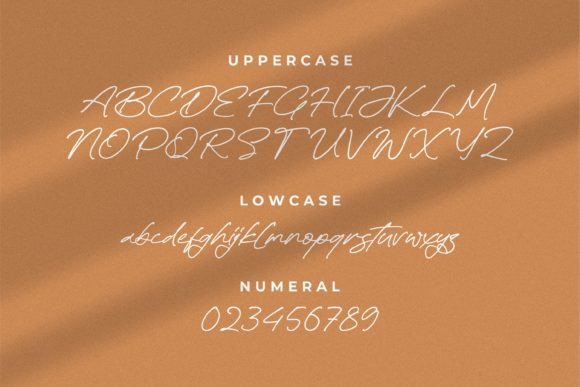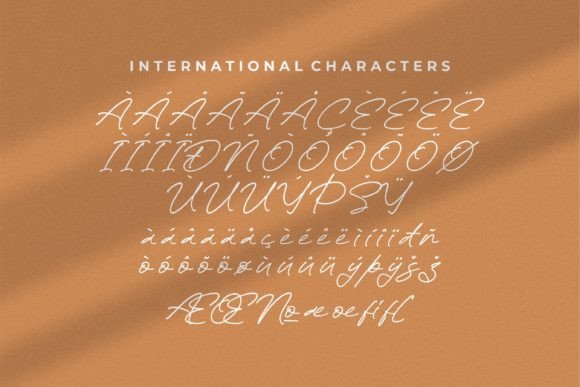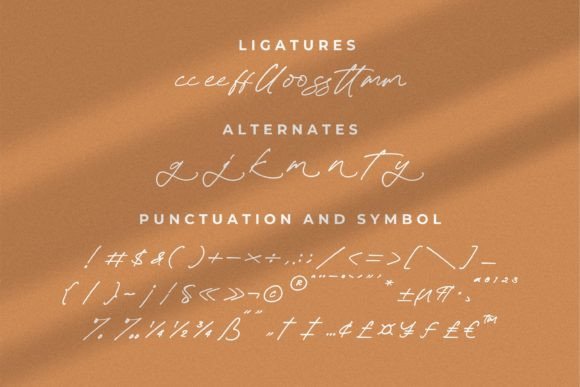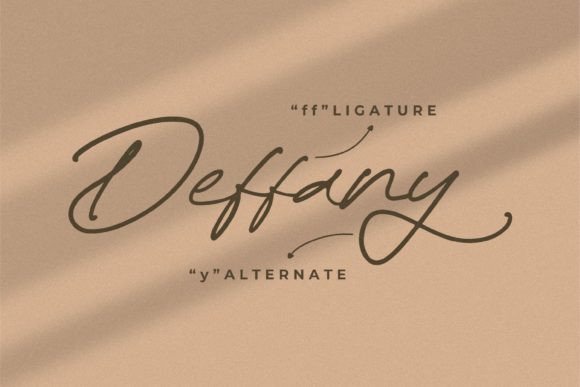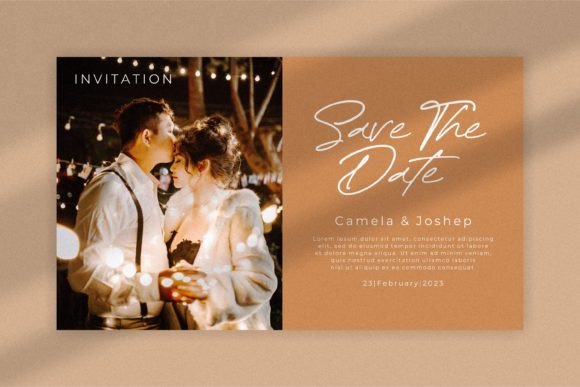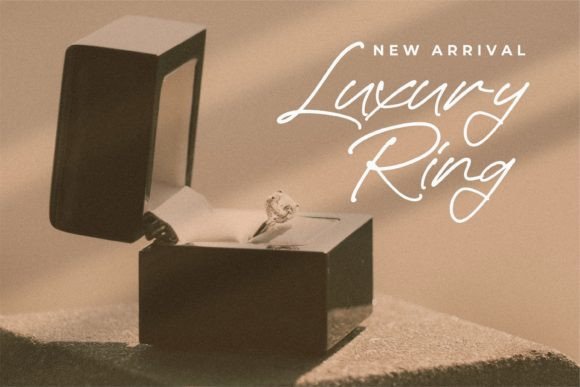
Introduction to Rinatha Font
Have you ever been stuck in front of your computer, staring at a blank canvas, searching for the perfect font to bring your creative project to life? I’m sure we’ve all been there at some point. For designers, finding the right font can be a game-changer. It’s the difference between a mediocre design and a truly stunning one that grabs attention and leaves a lasting impression.
Enter the Rinatha Font, a beautiful and bold handwritten font that’s sure to elevate any project to new heights. With its high-quality design and PUA encoded features, this font is a valuable resource for designers looking to add a touch of luxury to their work. Whether you’re creating logos, branding, or homewares designs, the Rinatha Font is the perfect companion to help you achieve your creative vision.
Key Features of Rinatha Font
- Rinatha Font is a high-quality design resource, perfect for any creative project.
- Unique characteristics include a modern, elegant aesthetic and a wide range of stylistic options.
Honest Review: Rinatha Font
As a designer, I’m always on the lookout for high-quality design resources that can elevate my creative projects. The Rinatha Font has caught my attention, and I’m excited to share my honest review.
Here are some aspects that work well: ✨
- Unique and modern design aesthetic that can add a touch of sophistication to any project
- High-quality font that looks great on various backgrounds, including transparent backgrounds
- Supports a wide range of languages, making it a versatile choice for global projects
However, there are some limitations to consider: ⚠️
- Limited font styles and weights, which may not be suitable for complex design projects
- No extended font family, which can limit customization options
Overall, the Rinatha Font is a solid choice for designers who want a modern and sleek font for their creative projects. While it may have some limitations, its unique design aesthetic and high-quality rendering make it a worthwhile addition to any design resource library.
The Rinatha Font is a high-quality design resource that can elevate any creative project. With its unique style and transparent background, it’s perfect for designers looking for a versatile font.
Tips for Getting the Most Out of Rinatha Font
To get the most out of Rinatha Font, use it in combination with other design elements to create a cohesive look.
Experiment with different font sizes, colors, and styles to achieve the desired effect.
Common Use Cases for Rinatha Font
The Rinatha Font is perfect for:
1. Branding and logos.
2. Social media graphics.
3. Infographics.
4. Brochures and flyers.
Alternatives to Rinatha Font
Montserrat is a modern sans-serif font designed for digital use. It’s perfect for high-quality design projects that require a clean and minimalist aesthetic. Montserrat is free to download and can be used for both personal and commercial purposes.
Montserrat is similar to Rinatha Font in its modern and sleek design, but it’s more versatile and can be used for a wide range of creative projects, from logos to body text.
Lato is a popular sans-serif font known for its high quality and readability. It’s a great choice for design projects that require a lot of text, such as articles, blogs, and websites. Lato is free to download and can be used for both personal and commercial purposes.